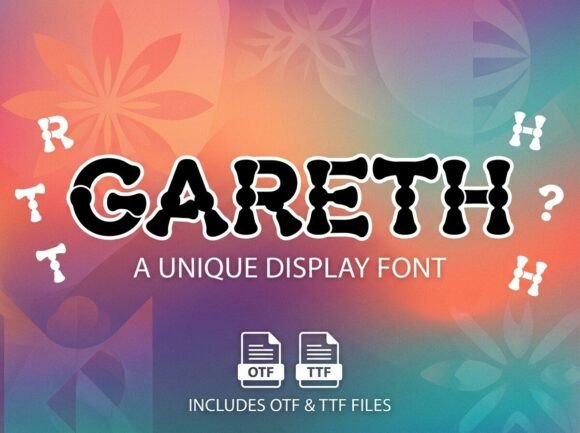
I’ll never forget the frustration of working on a project, pouring my heart and soul into it, only to hit a roadblock: finding the right font. My client wanted something bold, modern, and quirky, but not too playful. I scoured the internet, tried countless fonts, but nothing seemed to fit the bill. That was until I stumbled upon Gareth, a bold creative display font that instantly resonated with me. Its unique “bone-and-joint” silhouette and playful negative spaces spoke to my design sensibilities, and I knew I’d found the perfect fit.
An Honest Review of Gareth Font
- ✨ Unique and Memorable: Gareth’s eccentric design ensures your brand stands out in a crowded market.
- ✅ Versatile: Suitable for cutting-edge tech branding, experimental editorial headers, creative toy packaging, and engaging social media graphics.
- 💡 Industrial yet Approachable: The font’s visual weight and quirky geometry provide a sophisticated yet relatable aesthetic.
While Gareth is an exceptional font, there are a few things to keep in mind:
- ⚠️ Legibility at Small Sizes: Due to its bold and eccentric design, Gareth may not be the best choice for body text or small font sizes.
- 🤔 Limited Use Cases: While versatile, Gareth’s unique style may not be suitable for every project or brand.
A Practical Guide to Using Gareth Font
Gareth was designed with the goal of pushing the boundaries of visual storytelling. Inspired by industrial and technical design, the font’s creator aimed to craft a typeface that was both bold and approachable. With Gareth, you’ll add a sense of professional ingenuity and effortless, human-centric character to your visual identity.
| What makes Gareth font unique? | Gareth’s unique “bone-and-joint” silhouette and playful negative spaces set it apart from other fonts. |
| Is Gareth suitable for body text? | Due to its bold and eccentric design, Gareth is best suited for headlines and titles rather than body text. |
| Does Gareth support OpenType features? | Yes, Gareth supports OpenType features, including glyphs and stylistic alternates. |